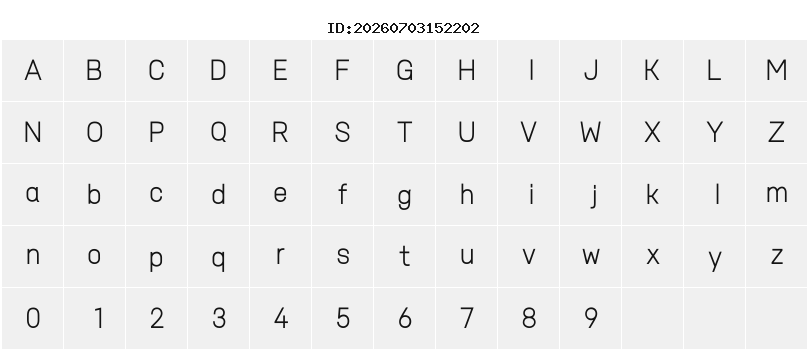
034-上首简黑中细体 Preview
About 034-上首简黑中细体.ttf
034-上首简黑中细体.ttf is a modern, elegant sans-serif font designed for ultimate readability and visual harmony. Perfect for branding, headlines, web design, and print materials.